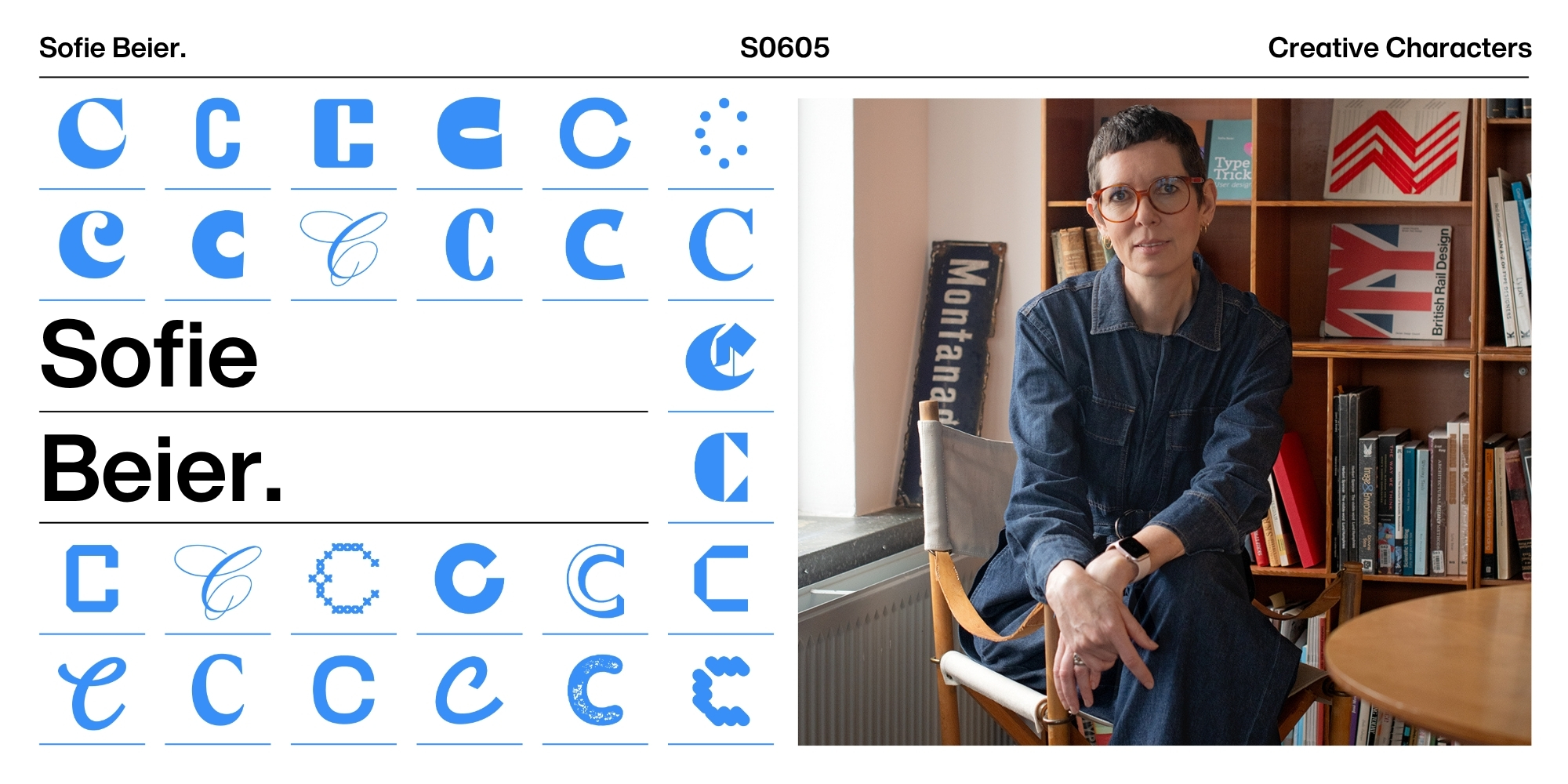
Creative Characters S6 E5: Sofie Beier breaks down legibility for designers.
I think the wonderful thing about typefaces is that they both have a function and then another role in conveying a message that can sometimes be way more subtle...
Sofie Beier.
Sofie Beier, legibility expert and guest on Creative Characters.
What makes something easy — or frustrating — to read? In this episode, typeface legibility expert Sofie Beier shares an introduction to legibility and readability from a designer’s point of view.
Sofie and host Terrance Weinzierl discuss common legibility myths, how typeface designers should plan for legibility, and some real-world consequences of poor legibility and readability.